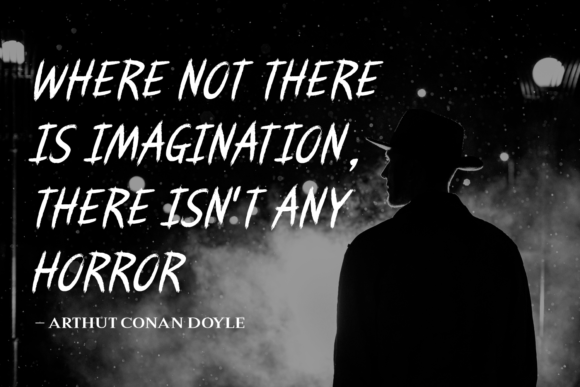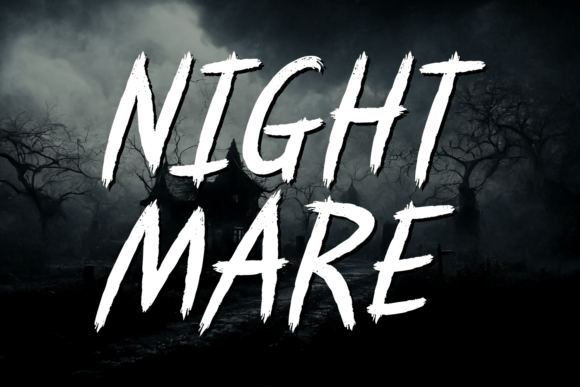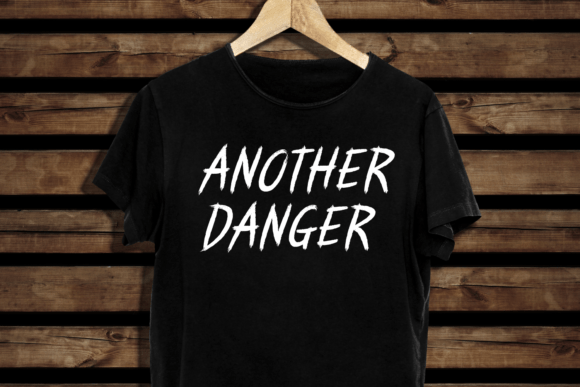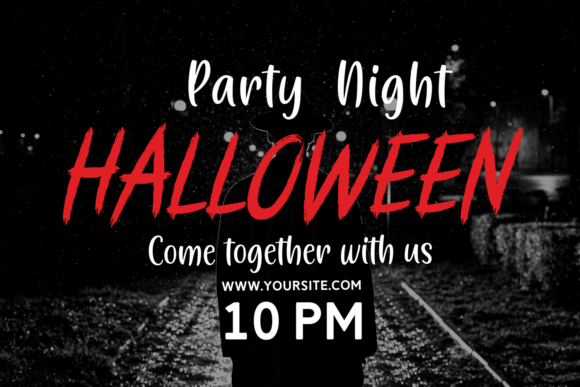
Bloody Vampire Font: Unleash the Terror of Halloween
As the sun sets on All Hallows’ Eve, creatives around the world start brainstorming ideas to make their Halloween projects stand out. The dimly lit streets, the eerie atmosphere, and the anticipation of the unknown – it’s the perfect time to unleash your inner horror fan. And what better way to do that than with a font that screams ‘fear’ and ‘terror’ from every letter?
Meet the Bloody Vampire Font, a spine-chilling Halloween font designed to send shivers down your spine. Perfect for spooky invitations, haunted house signage, and eerie party decorations, this font is a must-have for designers who want to add an extra dose of frightful fun to their projects. With its bold and blood-curdling letters, the Bloody Vampire Font is sure to make your Halloween creations the talk of the town.
Bloody Vampire Font Key Features
- Unique Characteristics: The Bloody Vampire Font features a unique, hand-drawn design with a gothic and horror theme, perfect for creating a spooky atmosphere in designs and projects.
- Font Style: The font has a bold, distressed, and irregular style, adding to its eerie and mysterious feel.
- Character Count: The Bloody Vampire Font includes a wide range of characters, including uppercase and lowercase letters, numbers, and special characters.
Bloody Vampire Font Review
The Bloody Vampire Font is a font that screams for attention, and in that sense, it’s a success. ✨ The bold, gothic-inspired design makes it perfect for horror-themed projects or anything that needs a touch of darkness.
Here are some things that work well with the Bloody Vampire Font:
- ✨ The font is highly customizable, allowing users to adjust the size, color, and style to fit their needs.
- ✨ It’s a great choice for titles and headings, where you want to make a statement.
- ✨ The font is available in a variety of styles, including regular, bold, and italic.
- ⚠️ The font may be too over-the-top for some projects, and could be distracting if used excessively.
- ⚠️ The font is not suitable for body text, as it can be difficult to read in long blocks of text.
- ⚠️ Some users may find the font too spooky or creepy, which could be a concern for certain projects.
Overall, the Bloody Vampire Font is a unique and attention-grabbing choice that can add a touch of drama and flair to your projects. Just be sure to use it sparingly and in the right context.
For a spooky effect, use the Bloody Vampire Font in combination with red or purple backgrounds.
Experiment with different font sizes and styles to create a dramatic effect.
Use the font to create titles or headings for a horror-themed design.
Halloween invitations and party decorations.
Horror movie posters and trailers.
Spooky-themed social media graphics and ads.
The Bloody Vampire Font includes a range of font sizes and styles, including regular, bold, italic, and bold italic. This allows designers to create a variety of effects and emphasize text in their designs. The font also includes a range of Unicode characters, making it suitable for use in a variety of languages.